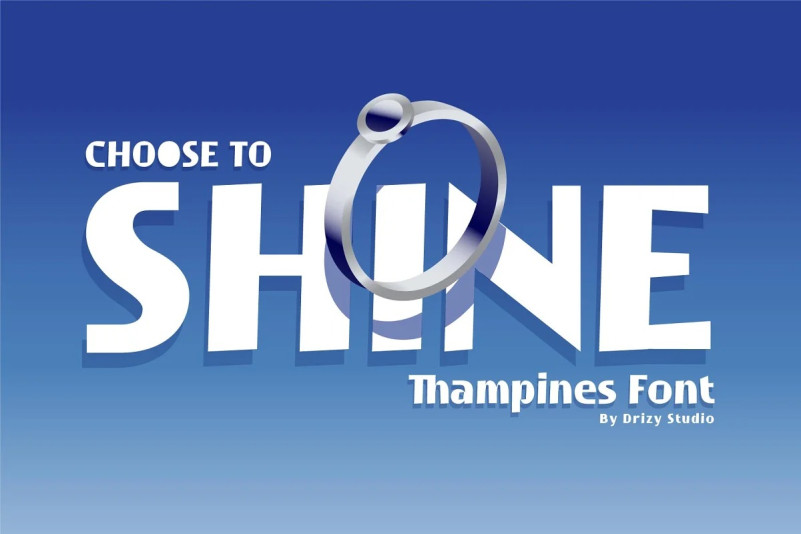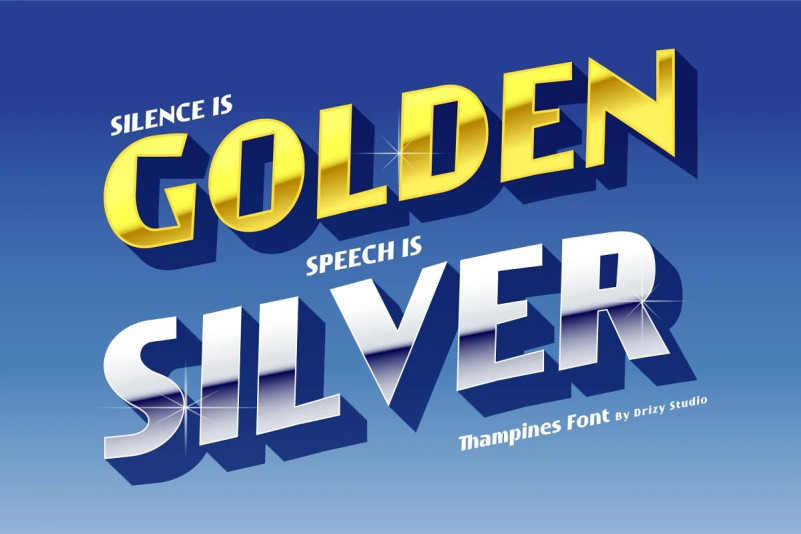
Thampines Font
Thampines Display Font is block bold sharp font from Drizy Studio. Offering all the basic styles you will need for a successful project.